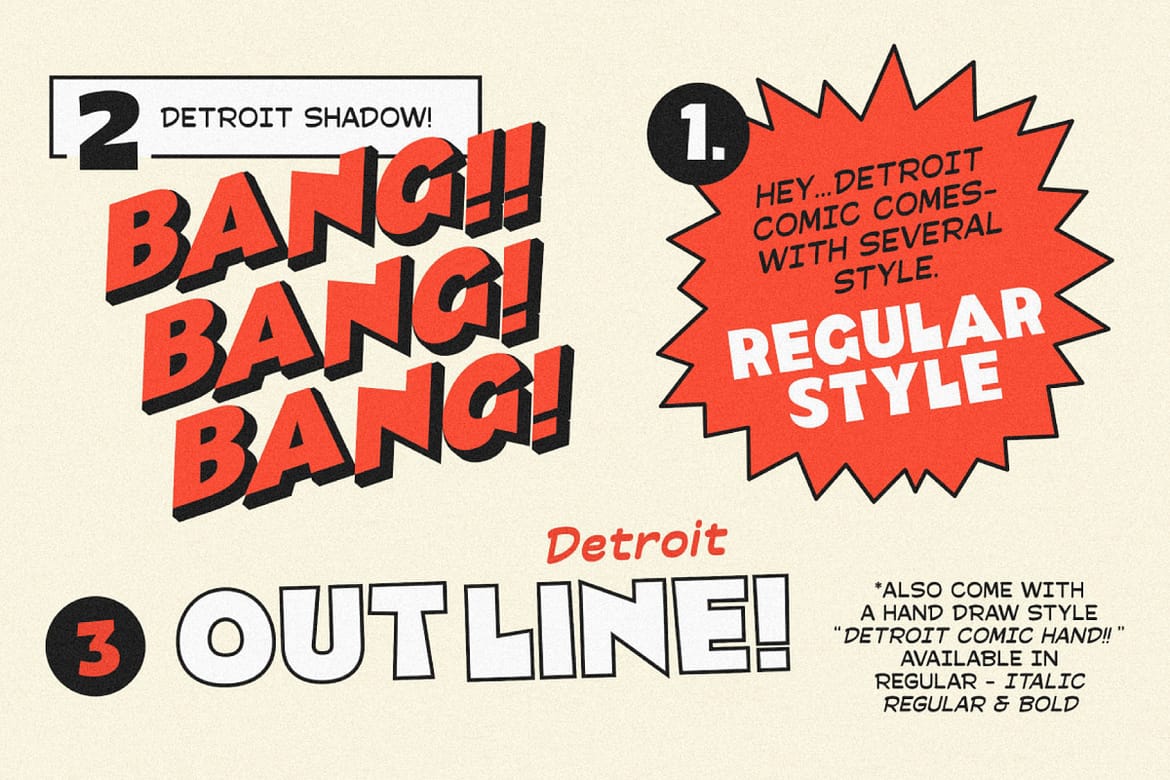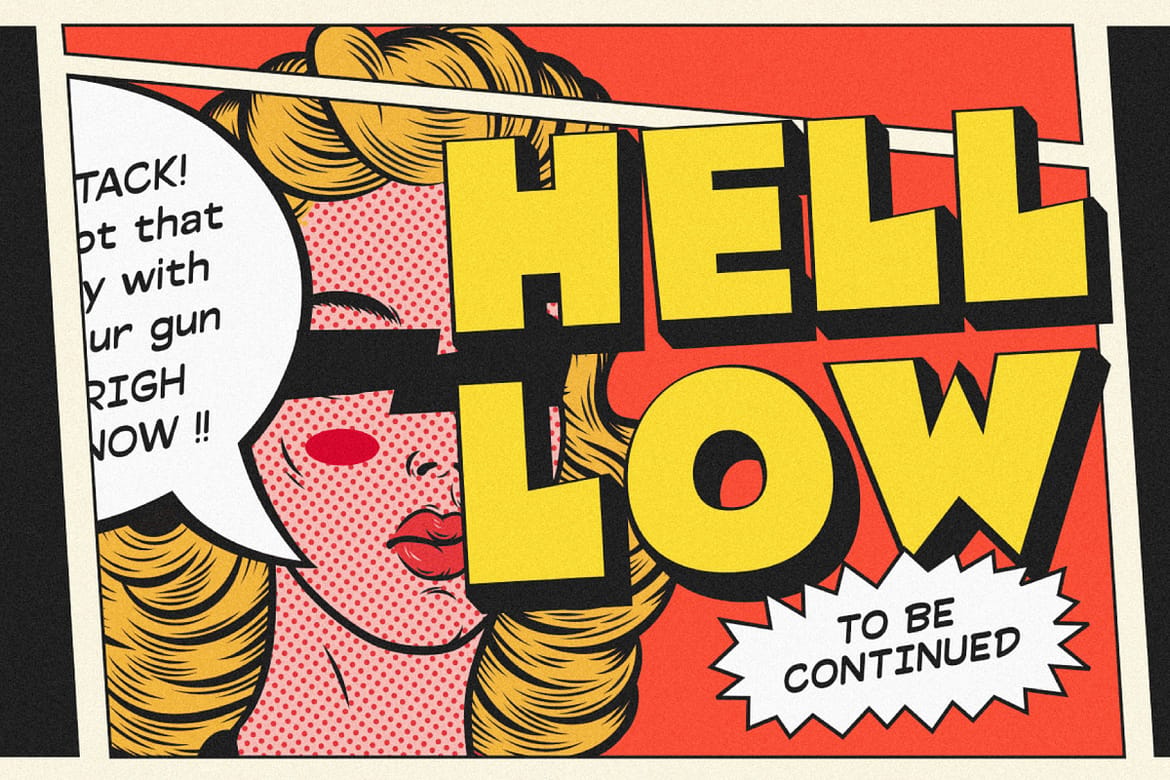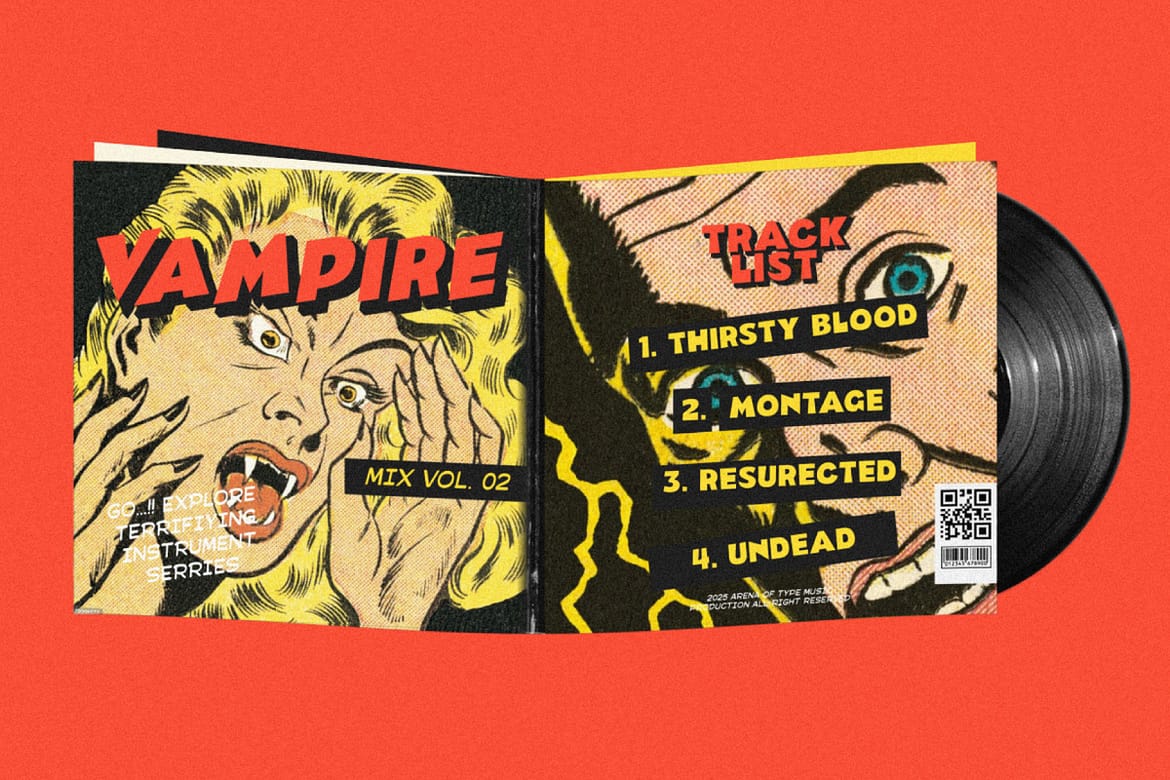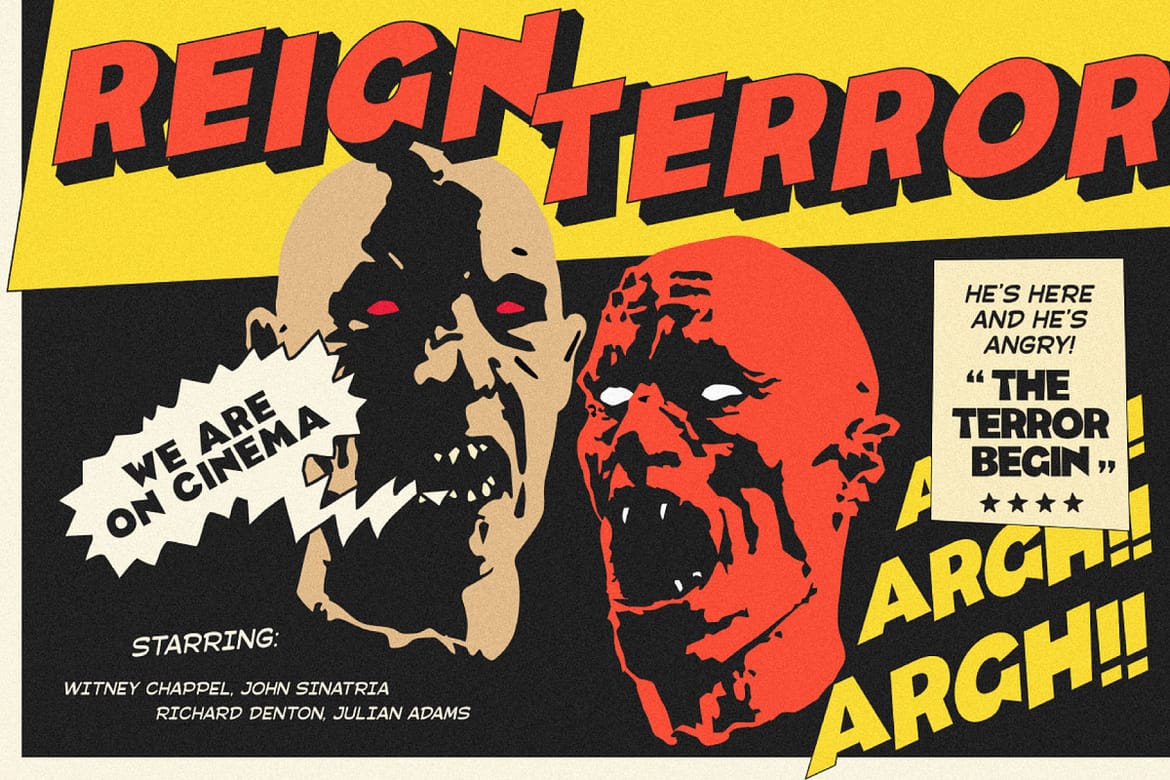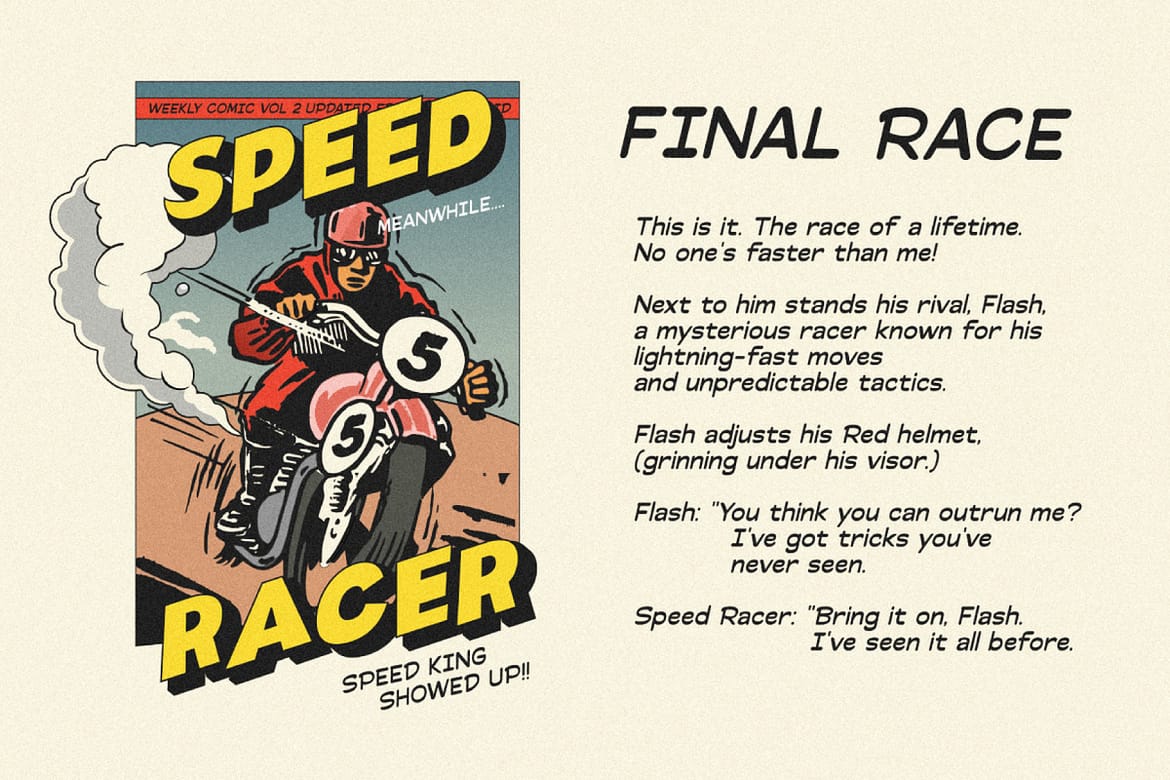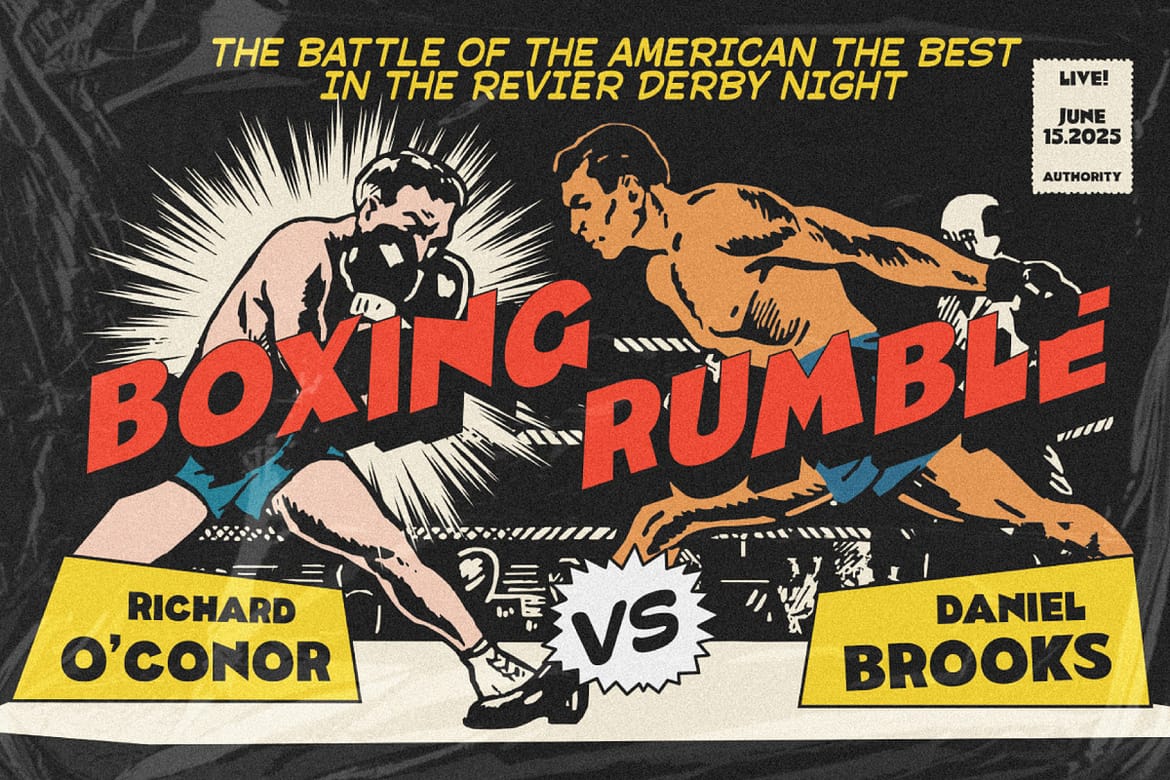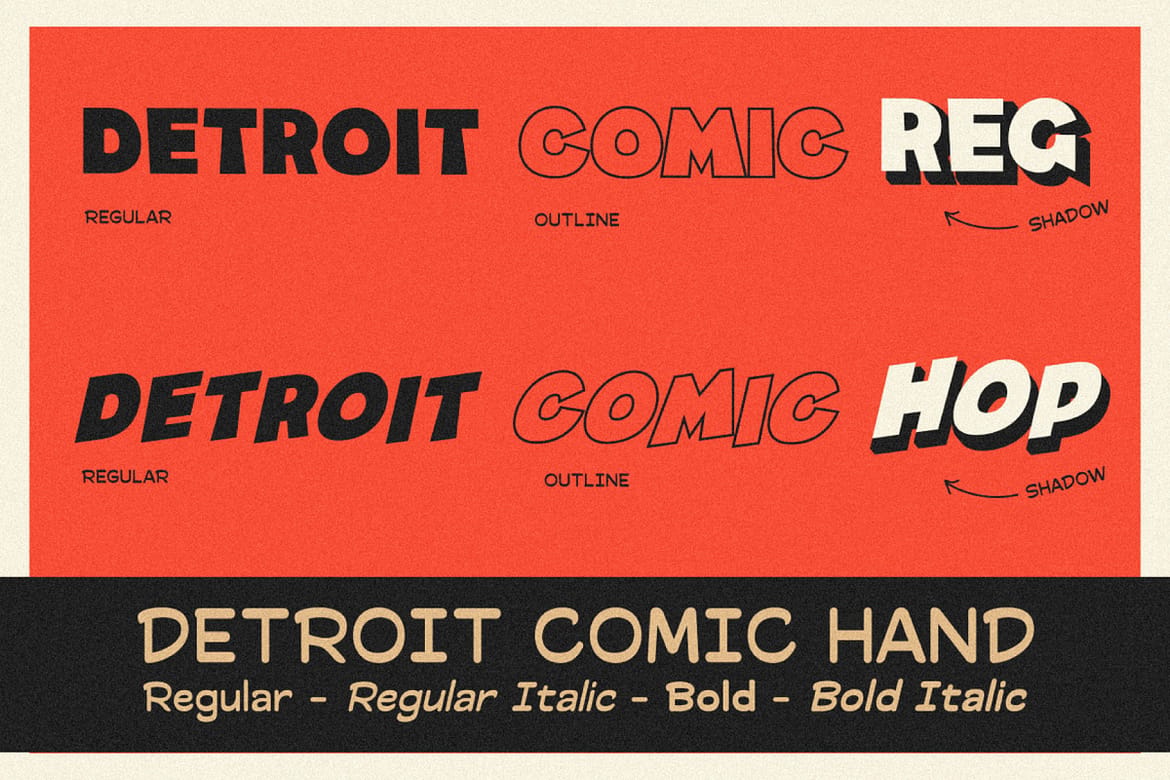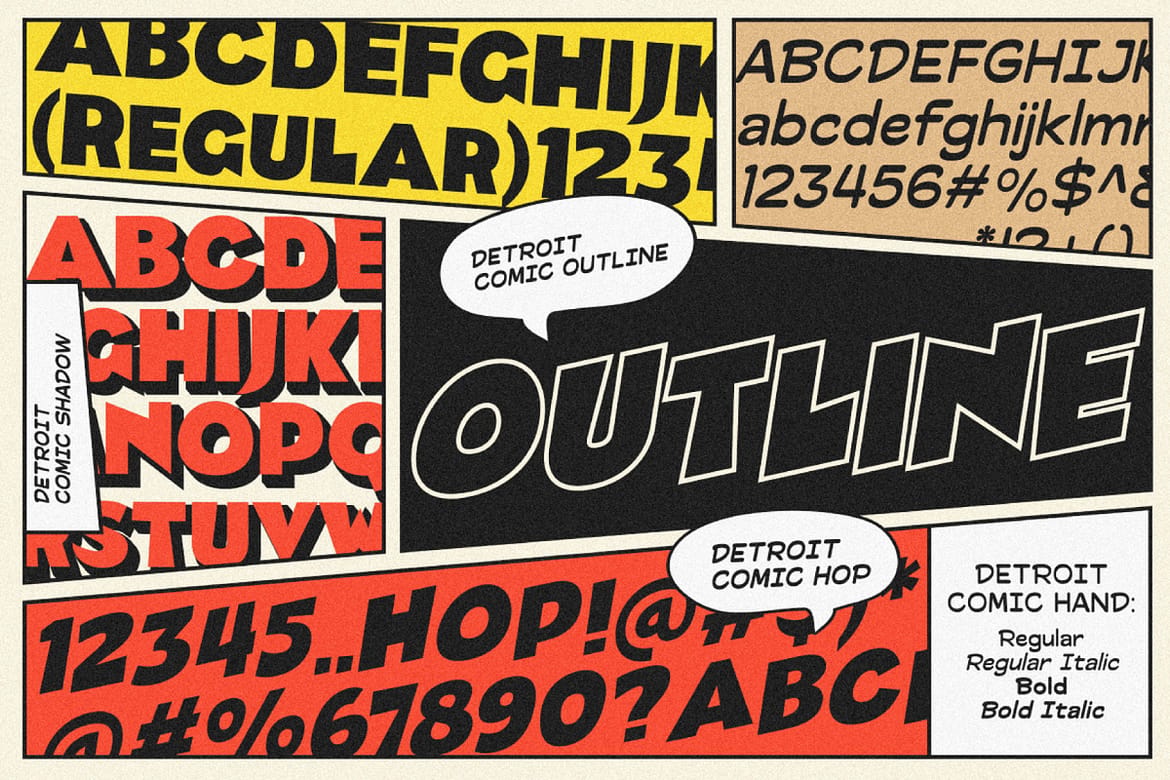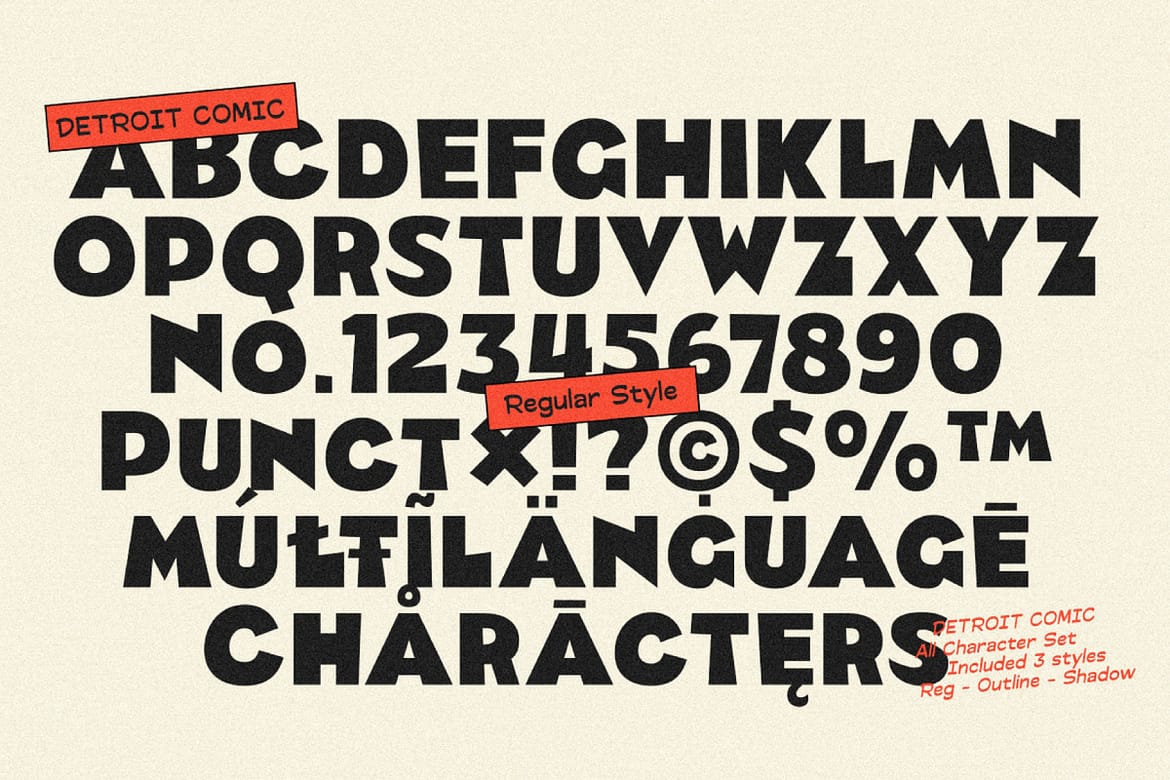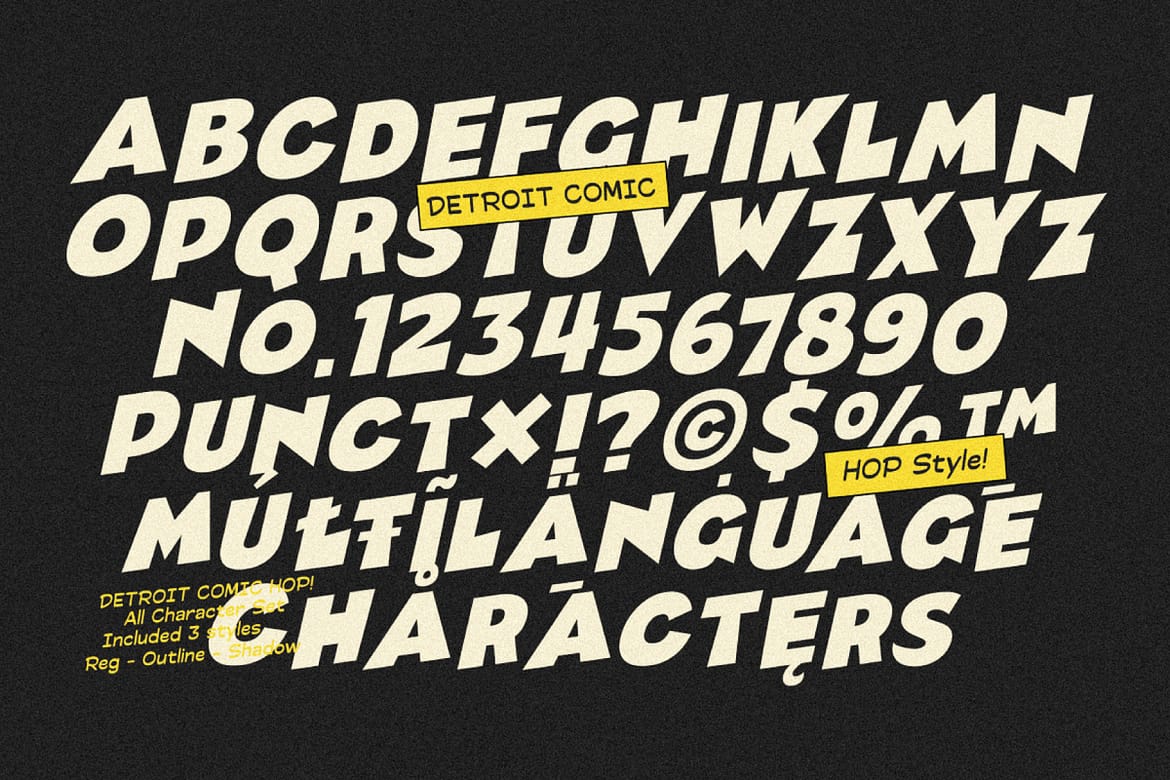
Detroit Comic is a bold, playful, and dynamic font family crafted to bring energy and personality to your designs. Inspired by classic comic lettering but refined for a smoother, more modern look, this collection offers a perfect balance of fun and functionality.
With 10 unique styles, Detroit Comic provides endless creative possibilities: Detroit Comic (Regular, Shadow, Outline) for high-impact titles and covers; Detroit Hop (Regular, Shadow, Outline) for a lively and energetic variant; and Detroit Hand (Regular, Italic, Bold, Bold Italic) for handwritten comic-style speech bubbles and captions.